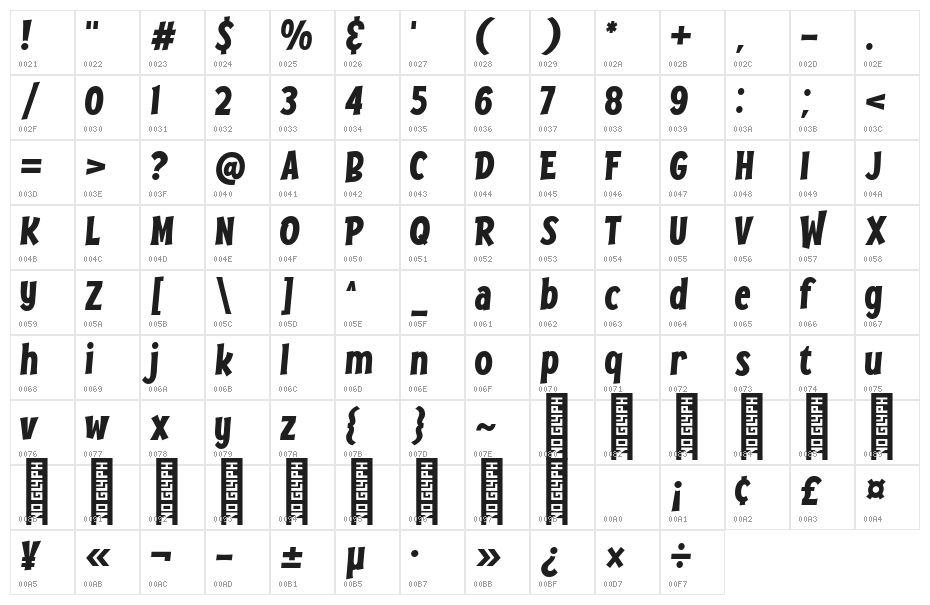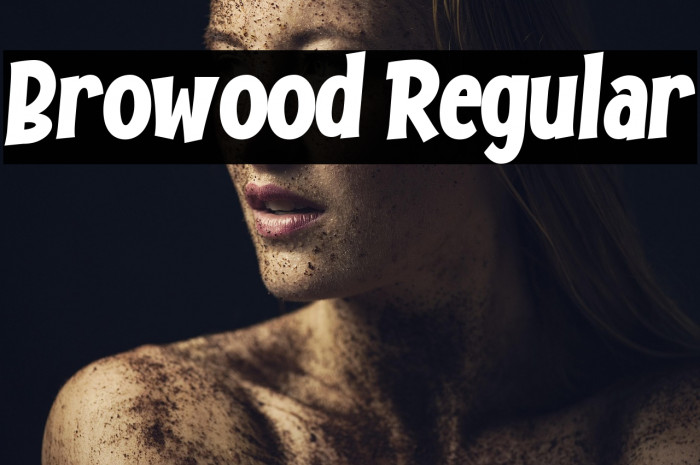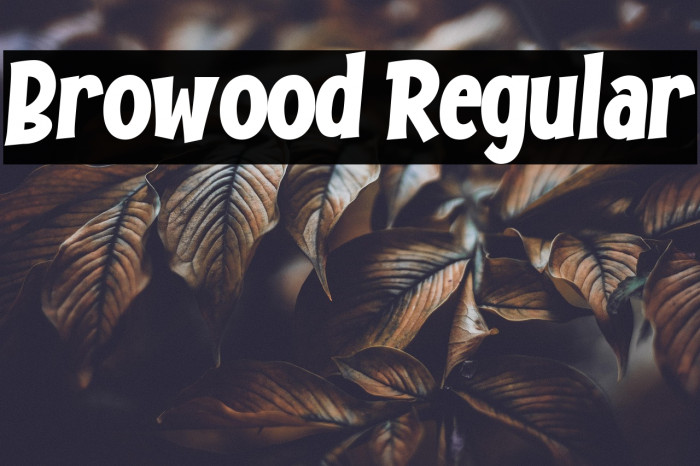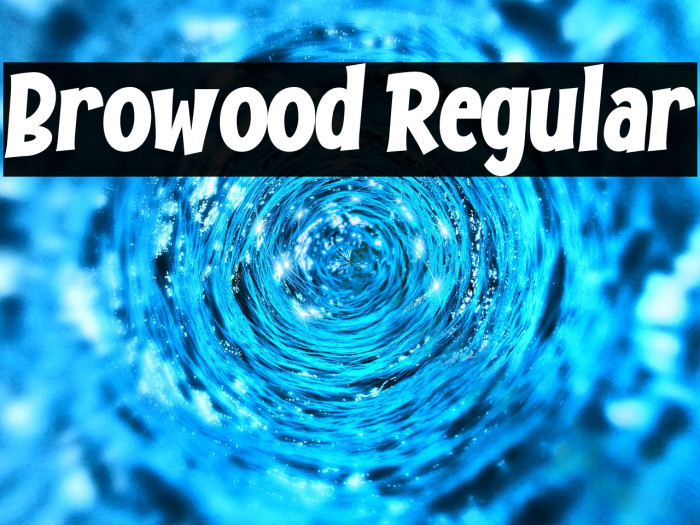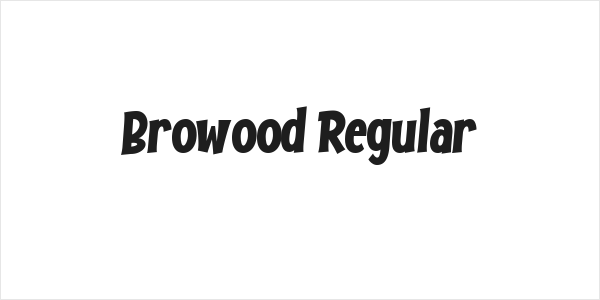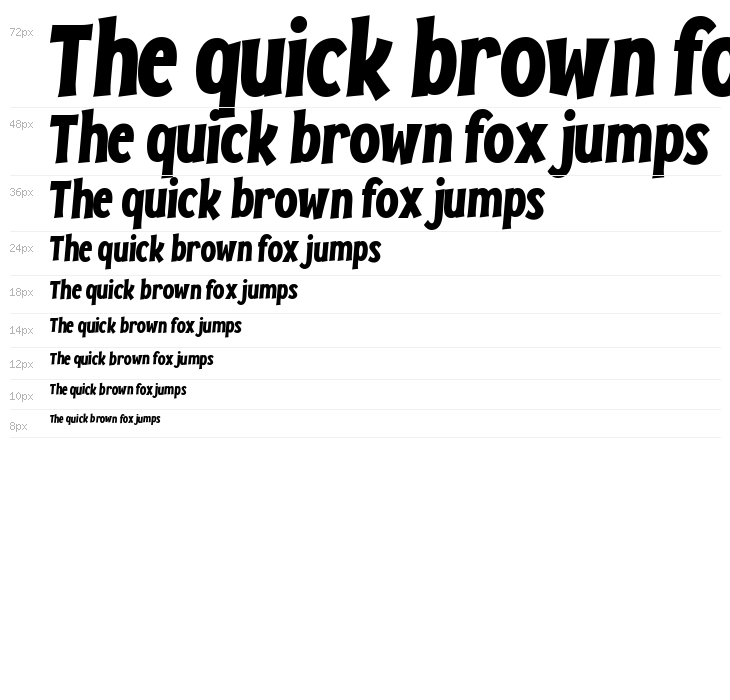
Browood Regular Font
Browood Regular Description
This font features a bold and dynamic style with a slight slant, giving it a sense of movement and energy. The characters are thick and robust, with a playful yet assertive presence. The uppercase letters are particularly striking, with a strong visual impact. The lowercase letters maintain the same boldness, ensuring consistency throughout the text. Numbers and special characters are designed with the same attention to detail, making them easily readable and visually appealing. The overall design is modern and eye-catching, suitable for a variety of creative applications.
| Proposed Projects | Ideal for branding, posters, headlines, and any project requiring a bold statement. |